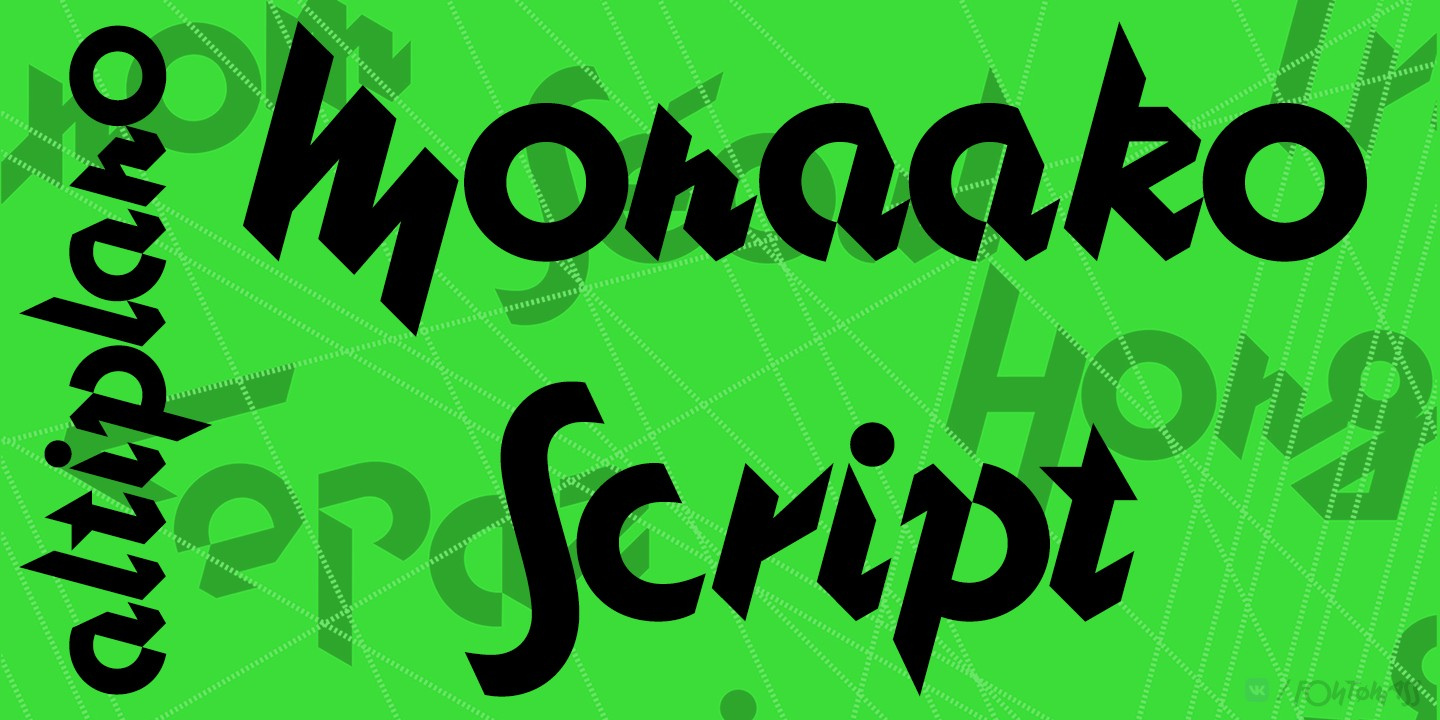
Monaako Script Font
Monaako Script Font is perfect for luxury Monaco-inspired branding, high-end yacht club signage, elegant casino marketing, sophisticated Monte Carlo events, premium luxury hospitality, exclusive fashion campaigns, opulent lifestyle advertising, and refined Mediterranean promotions.
What makes Monaako Script Font exciting is its Monaco elegance that embodies the sophisticated glamour and exclusive luxury of the French Riviera with Monte Carlo authenticity and Mediterranean refinement. The font features flowing letterforms with yacht-inspired curves and aristocratic character variations that evoke casino royalty, luxury yachts, and the timeless sophistication of Monaco's exclusive lifestyle and Mediterranean glamour. Its distinctive luxury styling and aristocratic appeal communicate wealth, exclusivity, and refined taste, making every message feel written in Monaco's palace and touched by the elegant beauty of French Riviera luxury and Mediterranean sophistication.
The Monaako Script Font family includes regular weight with uppercase and lowercase letters, numerals, punctuation marks, and special characters. Premium versions often feature stylistic alternates and luxury flourishes that enhance the elegant, aristocratic aesthetic perfect for high-end hospitality and luxury applications.
The aristocratic character of Monaako Script Font makes it particularly valuable for luxury yacht clubs, exclusive casinos, and high-end Mediterranean resorts. Its excellent readability ensures luxury messaging and exclusive communications remain clear while maintaining the distinctive Monaco aesthetic that appeals to clients seeking authentic French Riviera experiences and aristocratic luxury.
Luxury Mediterranean marketers appreciate how Monaako Script Font effortlessly conveys Monaco authenticity and aristocratic elegance. The font's flowing proportions and luxury details create prestigious brand materials that establish connections with audiences who value French Riviera culture, Monaco lifestyle, and the sophisticated elegance of Mediterranean luxury and exclusive aristocratic refinement.
The versatile luxury of this typeface extends to high-end fashion, exclusive real estate, and luxury travel where Monaco authenticity enhances luxury positioning and Mediterranean appeal. Monaako Script Font Free Download provides creative professionals with an essential tool for developing memorable, luxury-driven designs that resonate with audiences who embrace Monaco sophistication, French Riviera elegance, and the flowing luxury of Mediterranean aristocratic style in their exclusive lifestyle and luxury experiences.